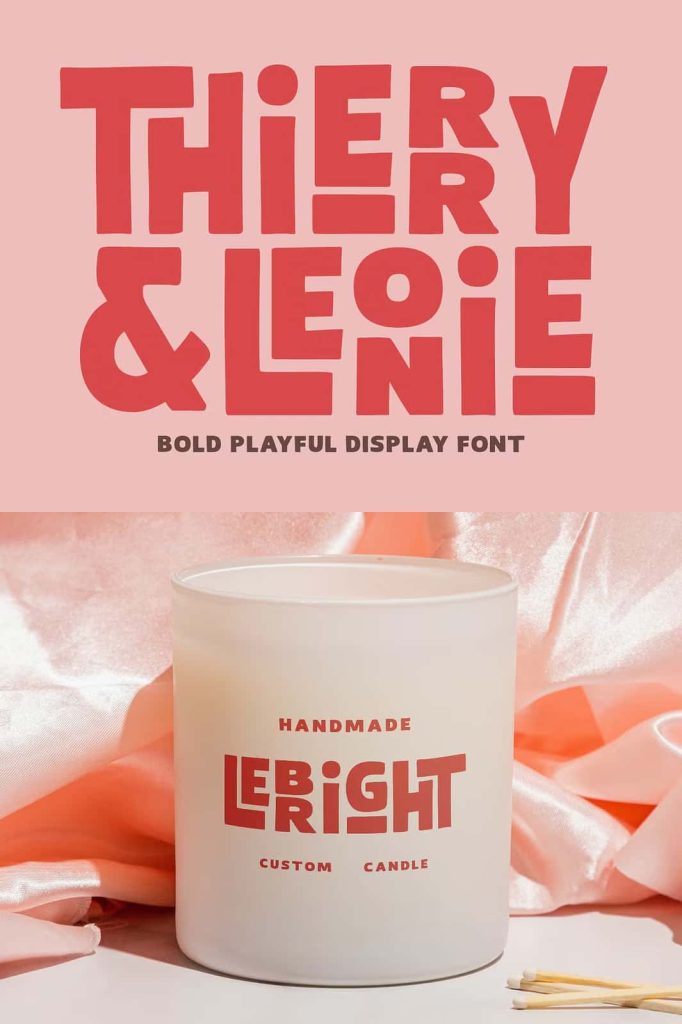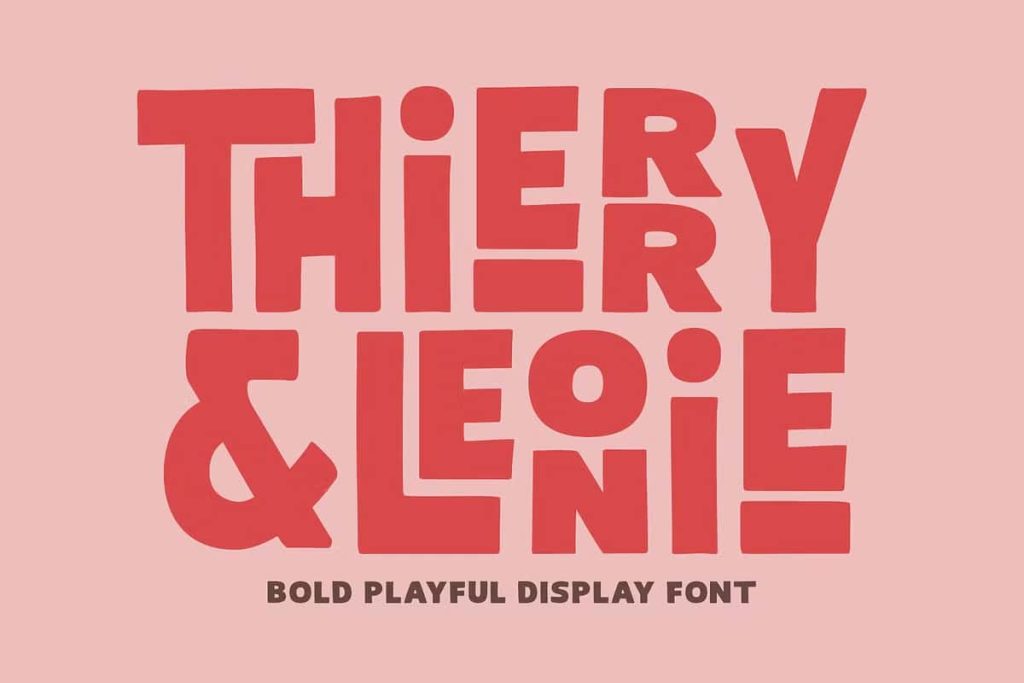
Thierry Leonie – Bold Playful Font
Thierry Leonie Font – Playful, Bold, and Full of Character
Thierry Leonie Font is your new creative companion in the world of typography. Designed to spread joy and personality, this playful and cheerful display font combines boldness with a condensed structure, making it a standout choice for designers who want to infuse charm and energy into their work. With its friendly sans-serif design and an abundance of stylish ligatures, Thierry Leonie feels like a warm embrace for your creative projects, giving every word a unique and inviting presence.
Bring Joy and Energy to Every Design
Typography plays a powerful role in shaping how we experience design. Thierry Leonie captures that power perfectly, offering a fresh take on modern display fonts. Its confident, bold strokes and condensed proportions make it ideal for projects that need to stand out while maintaining a welcoming, human touch. This font radiates positivity and fun, transforming ordinary layouts into captivating works of art that instantly attract attention.
Whether you’re designing for branding, packaging, editorial layouts, posters, or websites, Thierry Leonie brings a delightful sense of friendliness. It’s perfect for brands and creatives who want their message to feel approachable yet expressive. The balanced geometry and smooth letterforms create a clean, modern appearance while keeping a touch of handcrafted personality that appeals to both playful and professional audiences.
A Font That Feels Like a Conversation
Thierry Leonie doesn’t just display words—it communicates emotion. Every letter carries a sense of rhythm and charm that feels conversational and alive. The variety of ligatures and stylistic alternates allows designers to experiment with composition, creating organic and visually engaging typography. This flexibility makes the font suitable for both digital and print design, from website headers to product labels, from magazine titles to personalized branding assets.
Because of its condensed style, Thierry Leonie maintains strong visual impact even in tight spaces. Its bold yet balanced construction ensures readability while giving each design a friendly personality. The result is a typeface that can easily adapt to both minimalist and dynamic visual styles, depending on how it’s paired with color and imagery.
Perfect for Designers Who Love Personality
If you’re a designer who enjoys blending creativity with warmth, Thierry Leonie Font is made for you. It adds personality to every project without overwhelming the overall design. You can use it to create quirky logos, expressive branding, fun posters, event invitations, or cheerful headlines. The typeface naturally draws attention and leaves a lasting impression, helping your designs connect with audiences on a more emotional level.
In branding, Thierry Leonie shines by giving a voice to playful, youthful, and modern businesses. Think coffee shops, creative studios, lifestyle brands, and boutique labels—it’s the font that turns words into experiences. Its versatility also makes it an excellent choice for editorial design, where typography needs to feel both stylish and readable.
Designed with Creativity and Balance
Thierry Leonie is more than just a pretty typeface—it’s a tool for storytelling. Every curve, stroke, and ligature was designed to maintain balance between expression and functionality. The bold structure gives it strength, while the rounded details add a sense of friendliness and warmth. This duality makes Thierry Leonie ideal for projects that aim to inspire joy without sacrificing professionalism.
One of the most appealing aspects of this font is how easily it adapts to various creative directions. Combine it with minimalist graphics for a sleek look, or pair it with colorful illustrations for a fun, vibrant identity. Its flexibility ensures that your designs stay engaging across print and digital platforms.
Why Choose Thierry Leonie Font
• Playful and bold sans-serif design that stands out
• Condensed structure for strong visual impact in any layout
• Features numerous ligatures for creative customization
• Perfect for logos, branding, posters, and editorial design
• Balances friendliness with modern professional style
Thierry Leonie gives designers the confidence to be bold, expressive, and approachable all at once. It helps brands communicate a joyful message while maintaining visual harmony and coherence. From startups to established creative agencies, this font adds a distinctive spark to any design project.
Conclusion: Let Thierry Leonie Inspire Your Next Project
Thierry Leonie Font is more than a display font—it’s a creative statement. With its friendly shapes, versatile design, and cheerful energy, it turns every project into a story filled with warmth and personality. Whether you’re designing for a brand, a publication, or a digital campaign, Thierry Leonie brings life and positivity to your message. Embrace its playful charm and watch your ideas transform into visually stunning creations that speak directly to your audience. Let Thierry Leonie be your design ally and elevate your creative work to new levels of joy and